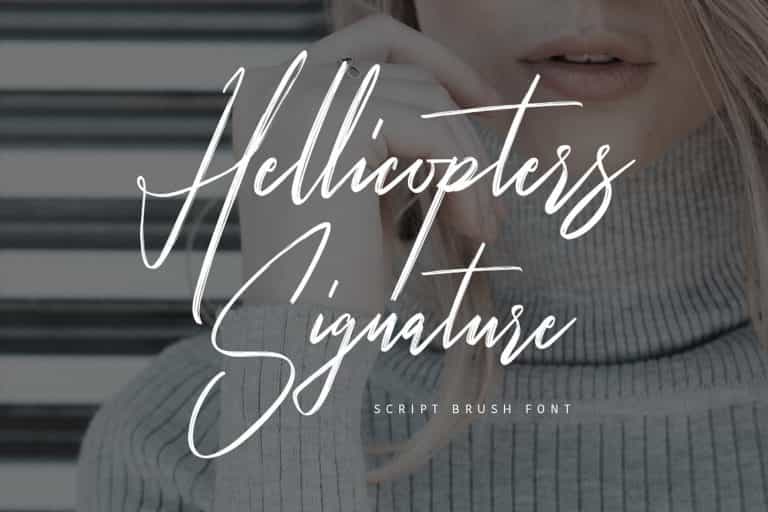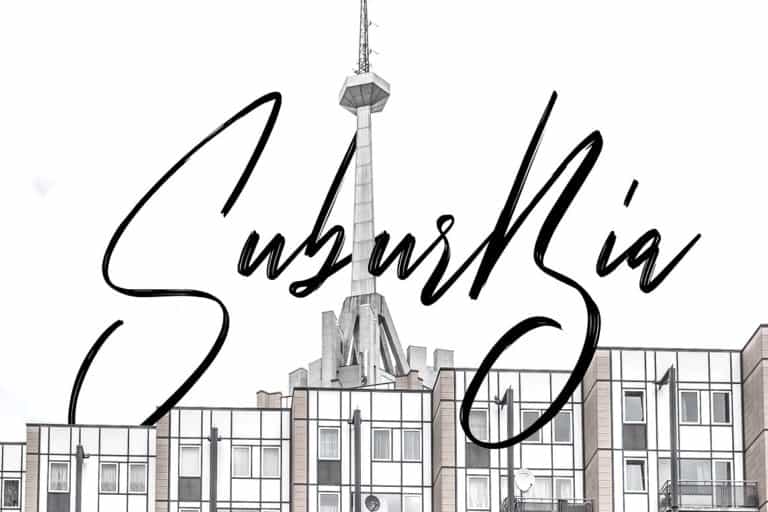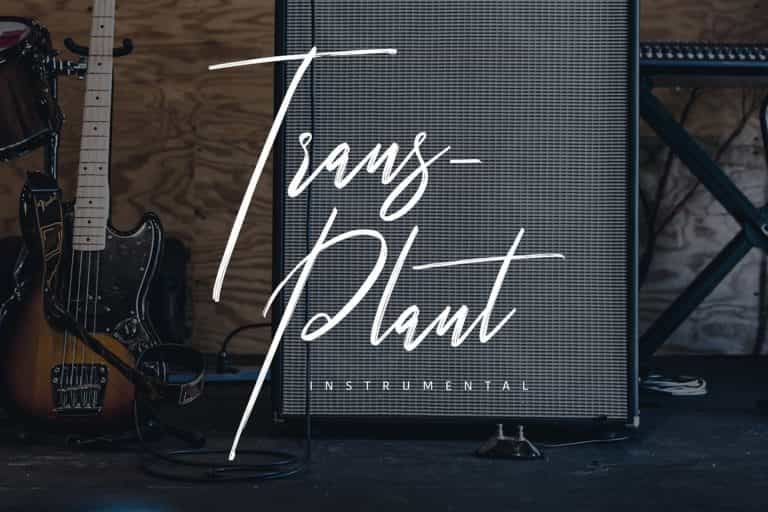
Discover Hellicopters Script Font, part of the Brush Calligraphy collection—a versatile and unique font perfect for adding a personal touch to your projects. Download it for free and enjoy crafting designs with style, from invitations to social media posts. This font is available exclusively for personal use, giving you the freedom to create without limits. Unlock your creativity with Hellicopters Script Font today!
Introducing Hellicopters Font. Hellicopters is the best for signature, stationery, logo, typography quotes printing on magazines or book covers and also as a website header.